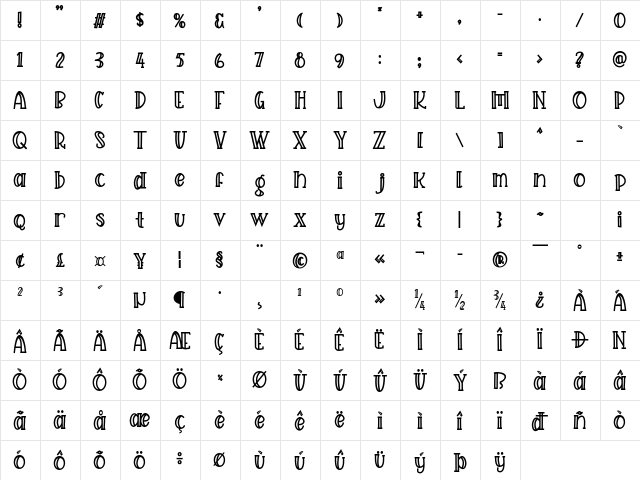
Freezed Regular Font Preview
Freezed Regular
Freezed Regular Font Details
| Designer | Rusdin Hendarsono |
Design Context for Freezed Typeface
Freezed is a composed and adaptable typeface that performs quietly and consistently across a wide range of design contexts.